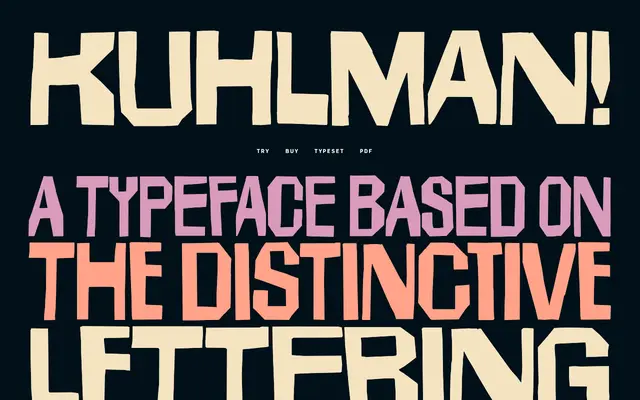
Kuhlman
An uppercase display typeface drawn from the lettering of graphic designer Roy Kuhlman, released to coincide with Steven Brower's monograph on Kuhlman's work.
Derived from the distinctive hand lettering of Roy Kuhlman, the typeface is built for titles and display settings where presence matters. It ships as a variable font with a width axis and includes a range of OpenType alternates — contextual alternates, diagonal K, X and Y forms, and a bearded G — giving users considerable expressive range from a single file. Coverage spans Latin Western and Eastern European scripts, plus Vietnamese.
An uppercase-only display typeface drawn from the hand lettering of graphic designer Roy Kuhlman, with expressive alternates and a variable width axis placing it firmly in the display category.